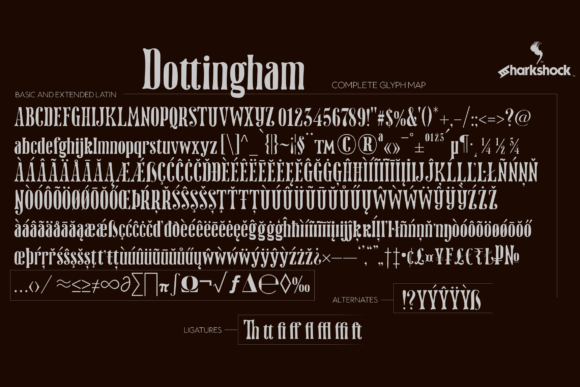
Dottingham Font: A Victorian-Inspired Display Font for Unique Creations
In the world of typography, fonts play a crucial role in conveying the tone and personality of a design. For designers and crafters looking to add a touch of elegance and sophistication to their creations, the Dottingham font is an excellent choice. This Victorian-inspired display font is imposing, features uniquely shaped letters, and is perfect for projects that require a distinct touch.
What is Dottingham Font?
Dottingham is a Victorian and rough textured display font that exudes a sense of grandeur and luxury. Its imposing presence makes it ideal for headlines, titles, and other display purposes. The font’s unique texture and lettering style give it a distinctive character that sets it apart from other fonts.
Key Features of Dottingham Font
- Victorian-Inspired Design: Dottingham font is inspired by the ornate and intricate designs of the Victorian era. Its letters are uniquely shaped, with flourishes and swashes that add to its elegance.
- Rough Textured Finish: The font features a rough textured finish that gives it a tactile, hand-crafted feel. This texture adds depth and character to the font, making it perfect for designs that require a sense of authenticity.
- Imposing Presence: Dottingham font is designed to make a statement. Its imposing presence makes it ideal for headlines, titles, and other display purposes where you want to grab the reader’s attention.
- Versatile: Despite its unique character, Dottingham font is surprisingly versatile. It can be used for a wide range of designs, from luxury brands to artistic projects.
Uses of Dottingham Font
Dottingham font is perfect for designers and crafters who want to add a touch of elegance and sophistication to their creations. Here are some of the ways you can use this font:
- Logos and Branding: Use Dottingham font to create a luxurious and sophisticated brand identity. Its unique character makes it perfect for logos, business cards, and other marketing materials.
- Headlines and Titles: The font’s imposing presence makes it ideal for headlines and titles. Use it to grab the reader’s attention and add a touch of drama to your designs.
- Artistic Projects: Dottingham font is perfect for artistic projects that require a sense of elegance and sophistication. Use it to add a touch of luxury to your artwork, posters, and other creative projects.
- Wedding and Event Design: The font’s Victorian-inspired design makes it perfect for wedding and event design. Use it to create beautiful wedding invitations, menus, and other stationery.
Tips for Using Dottingham Font
Here are some tips for using Dottingham font effectively:
- Use it Sparingly: Dottingham font is a bold and imposing font. Use it sparingly to avoid overwhelming the reader.
- Pair it with a Simple Font: Pair Dottingham font with a simple font to create contrast and add visual interest to your design.
- Experiment with Colors: The font’s unique texture and lettering style make it perfect for experimenting with different colors and textures.
Dottingham font is a unique and elegant display font that is perfect for designers and crafters looking to add a touch of sophistication to their creations. Its Victorian-inspired design, rough textured finish, and imposing presence make it ideal for a wide range of designs, from luxury brands to artistic projects. With its versatility and elegance, Dottingham font is sure to become a favorite among designers and crafters.